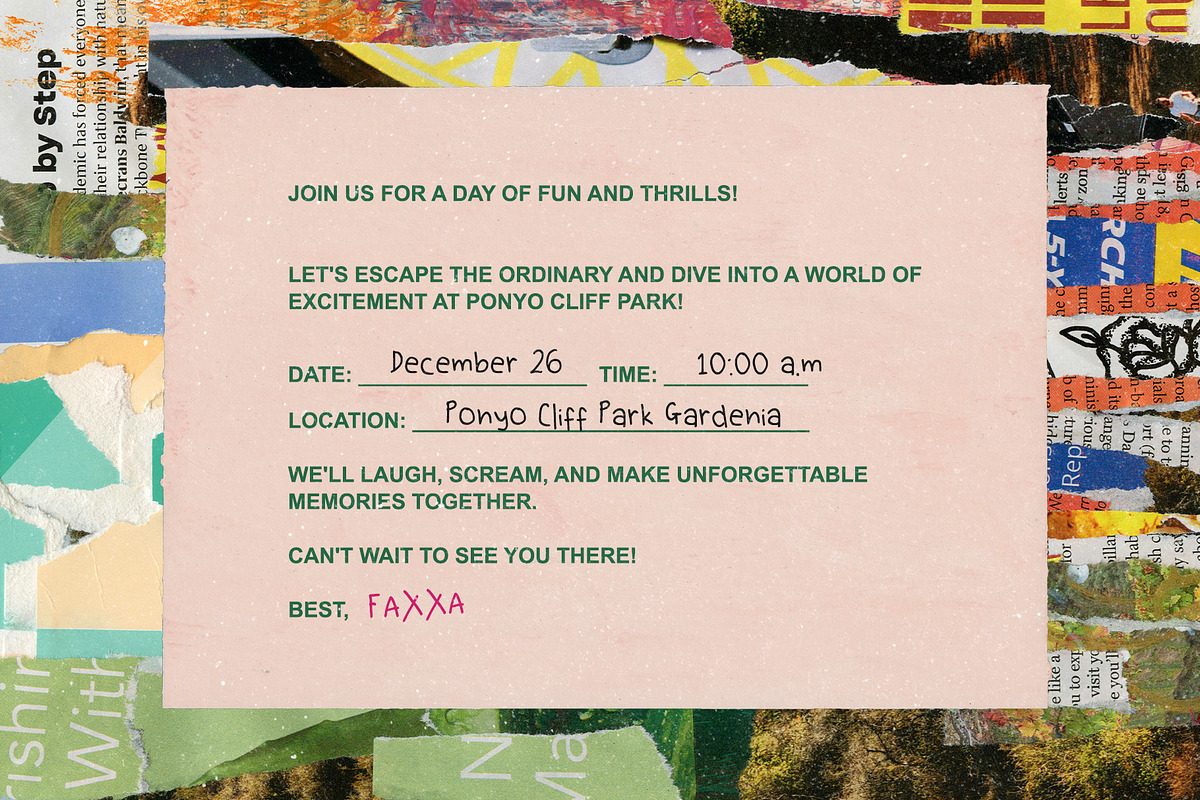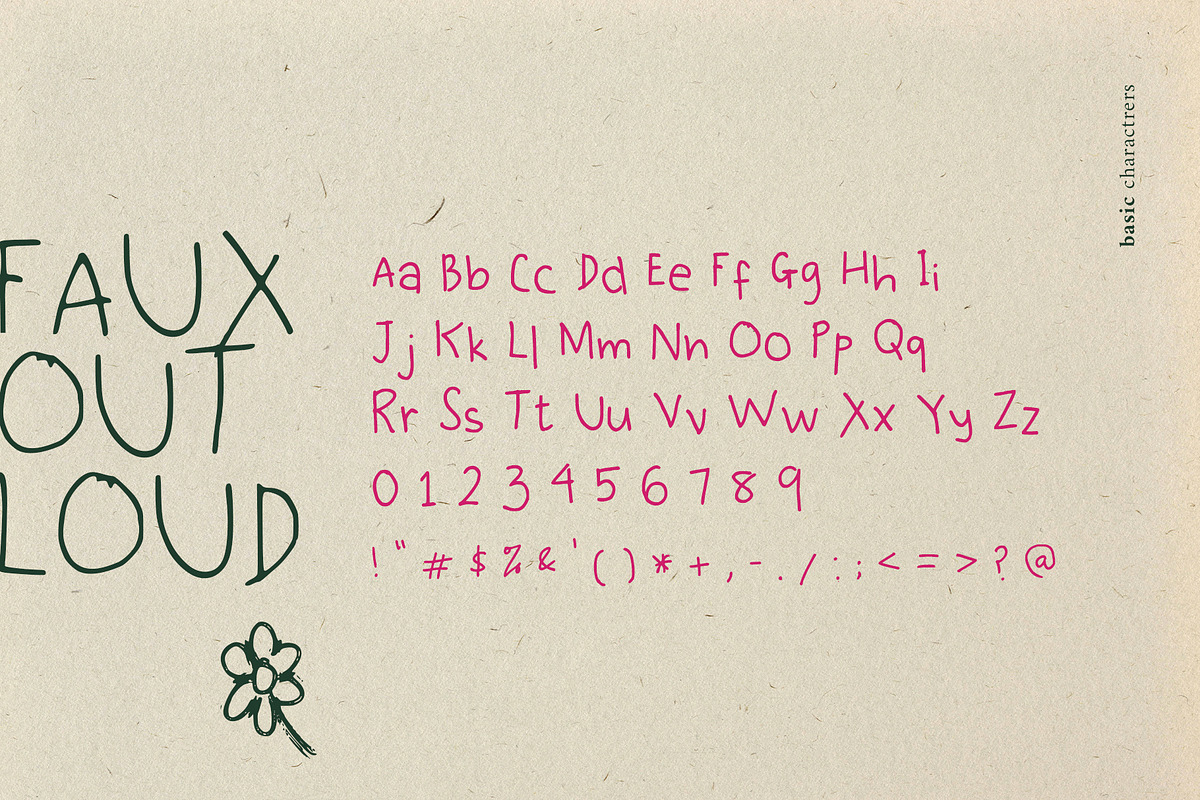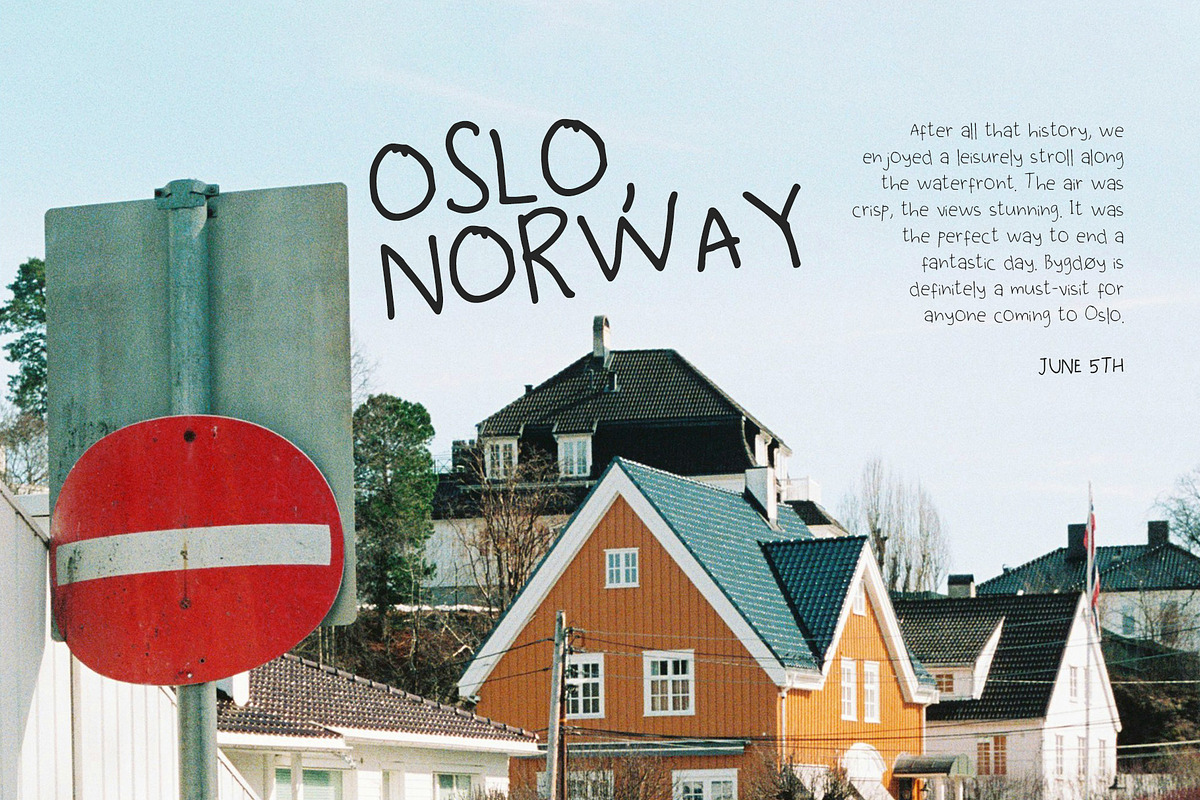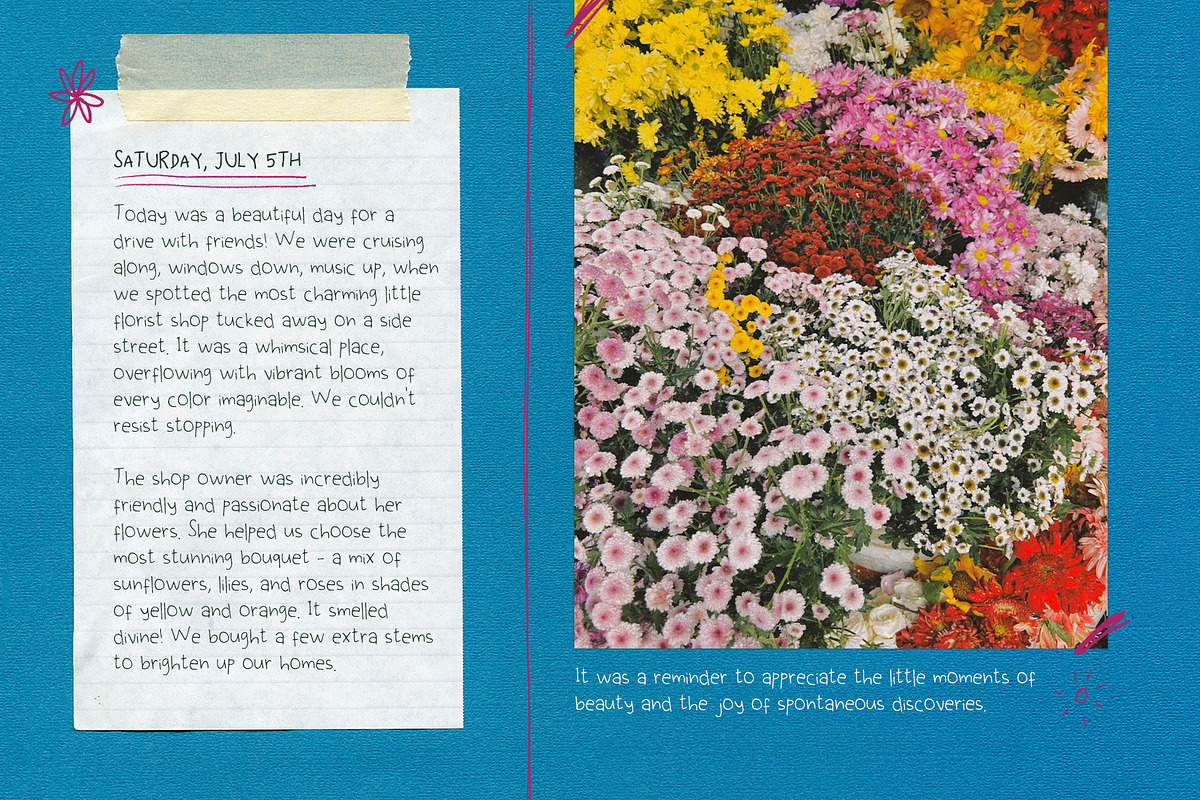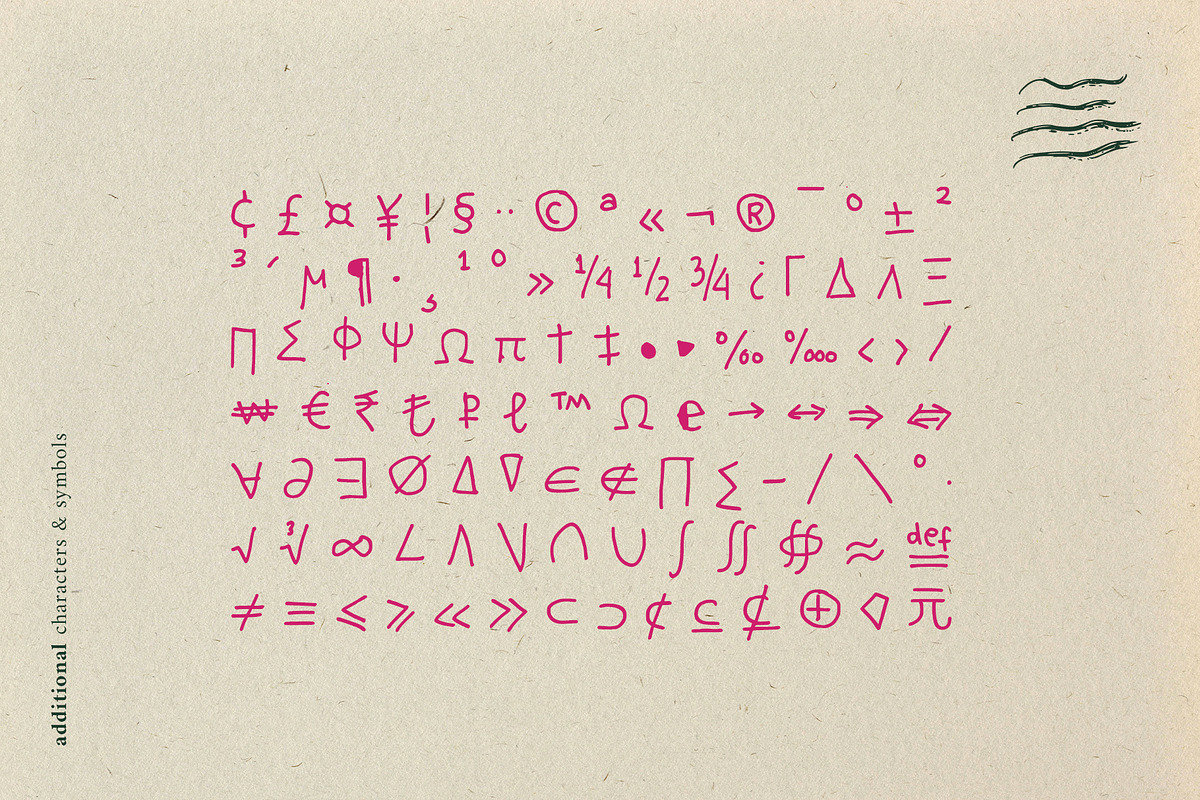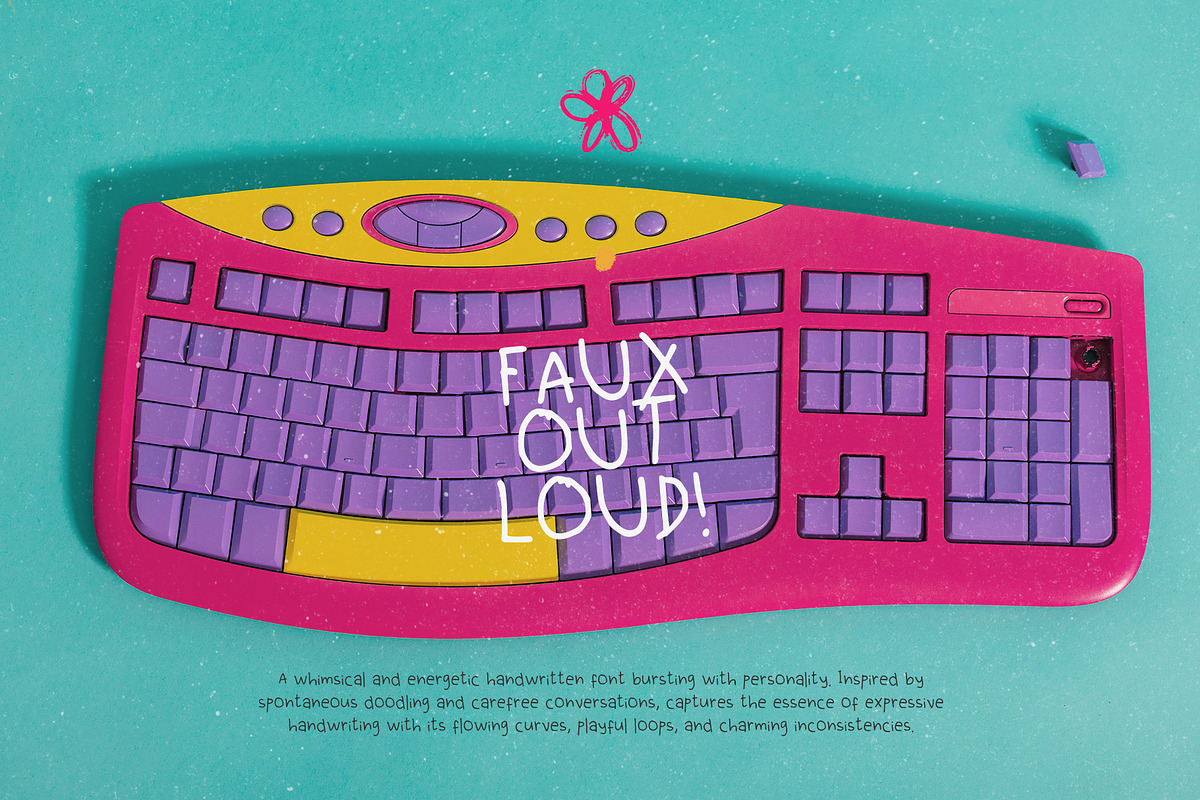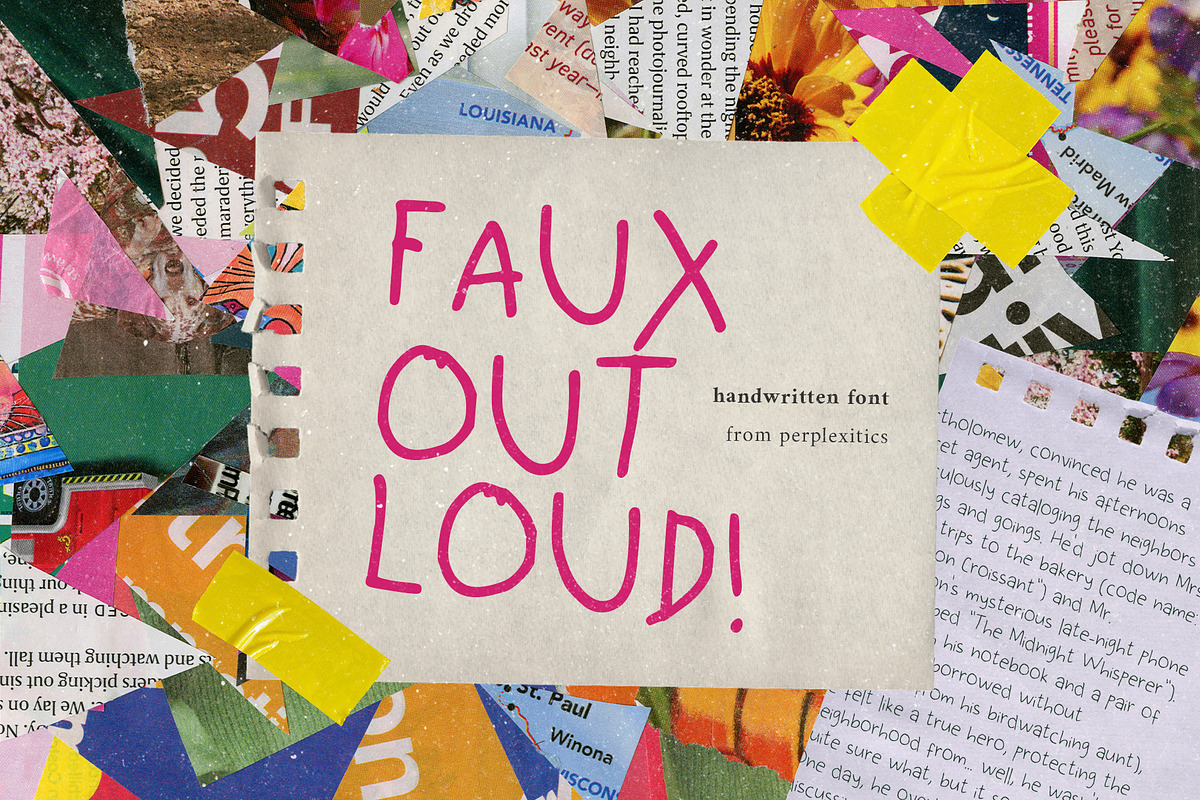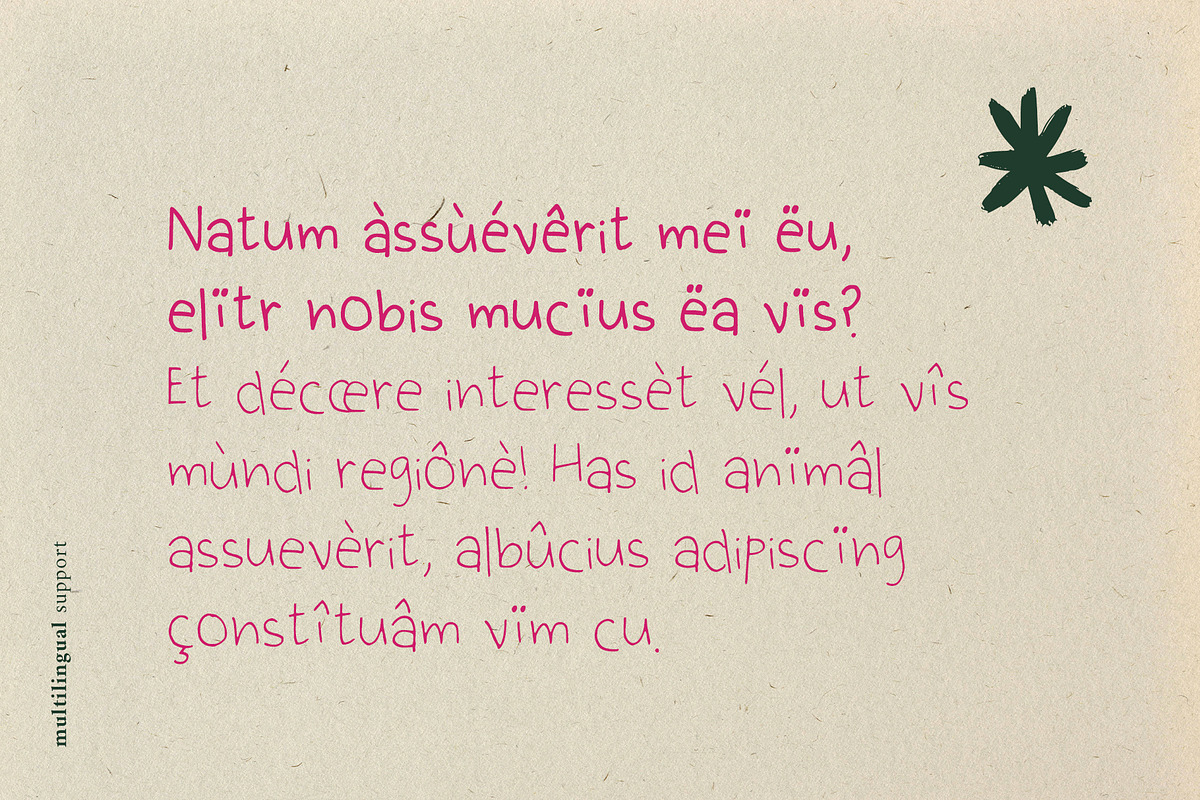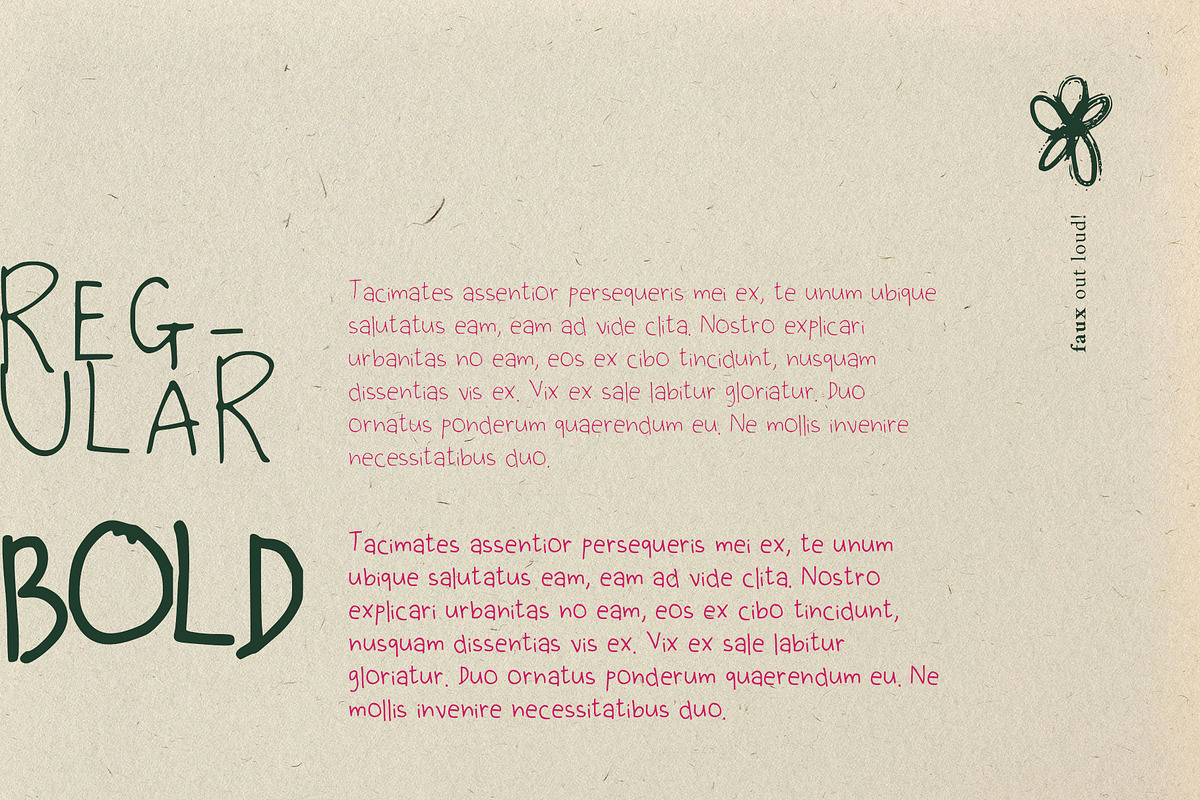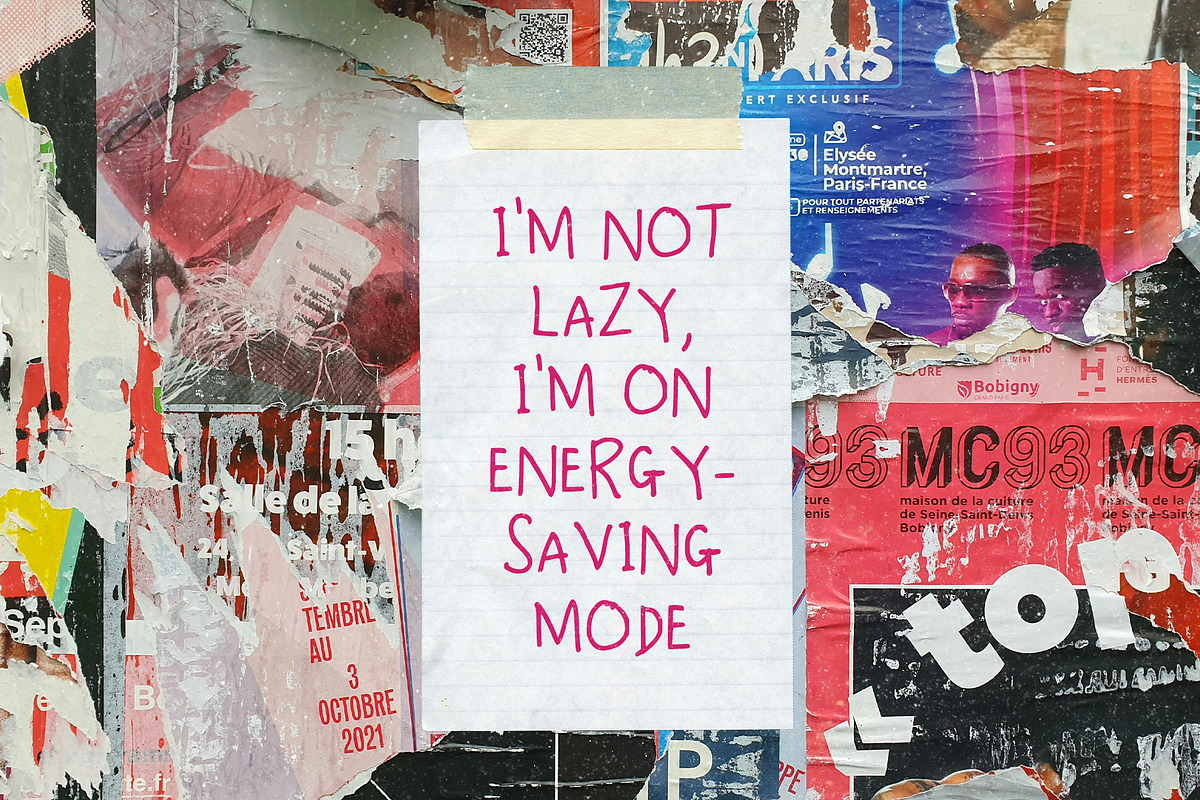
Faux Out Loud Playful Handwritten
Faux Out Loud is a whimsical and energetic handwritten font bursting with personality. Inspired by spontaneous doodling and carefree conversations, it captures the essence of expressive handwriting with its playful loops, and charming inconsistencies.
Faux Out Loud Font is packed with everything you need, including uppercase and lowercase letters, numbers, and punctuation. Multilingual support.